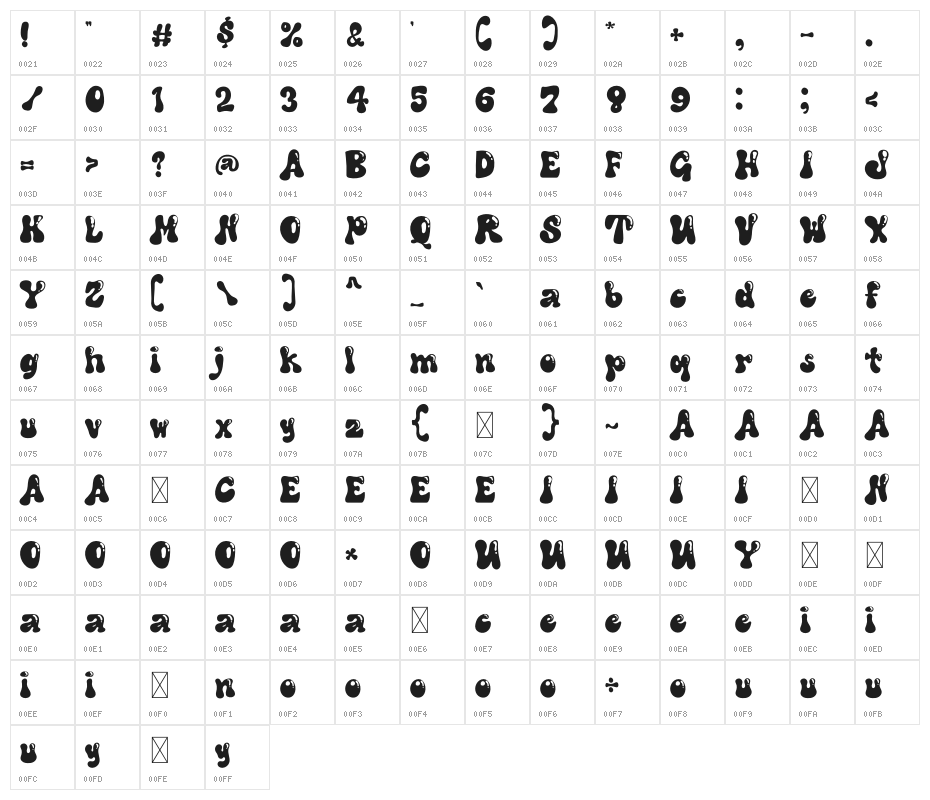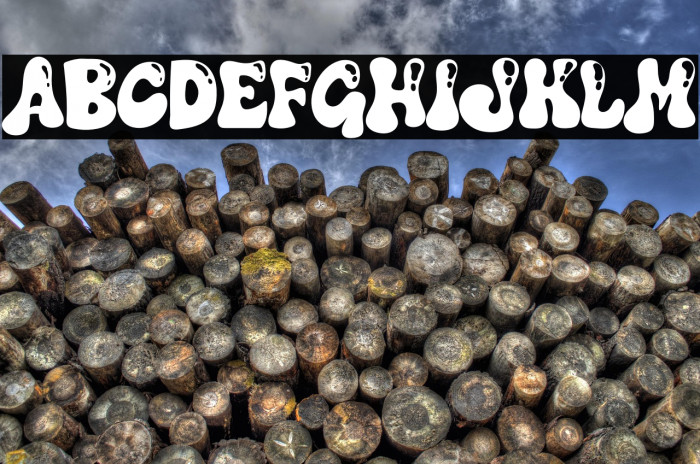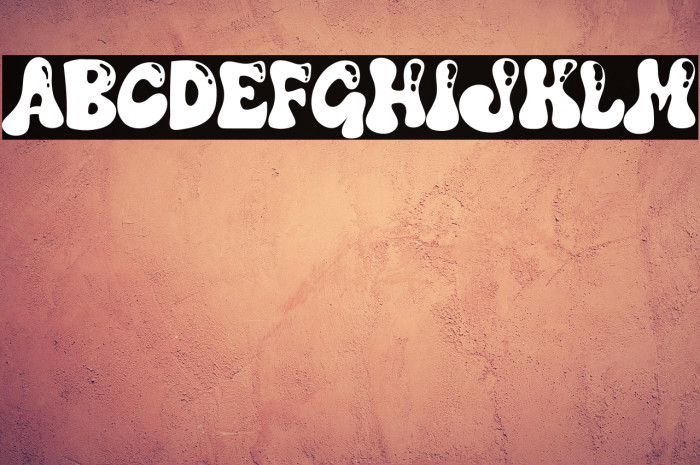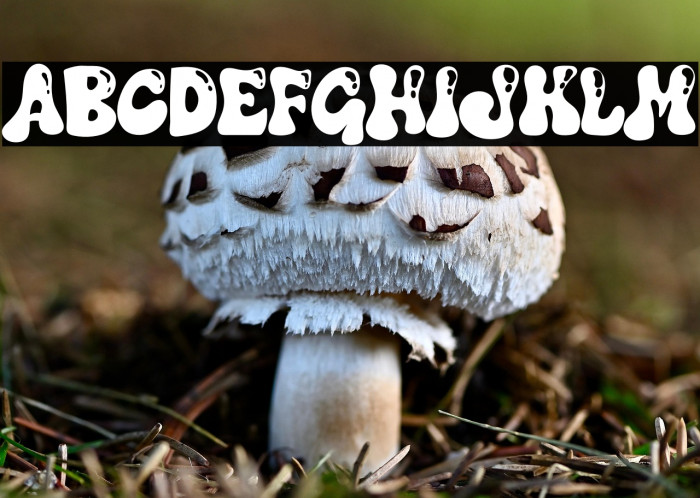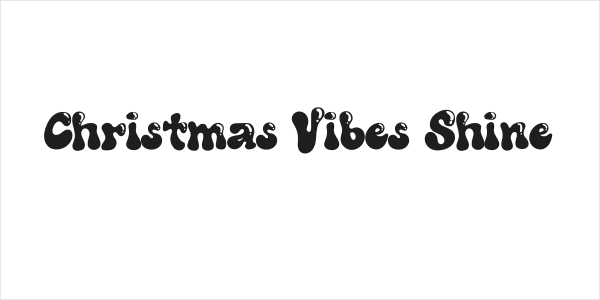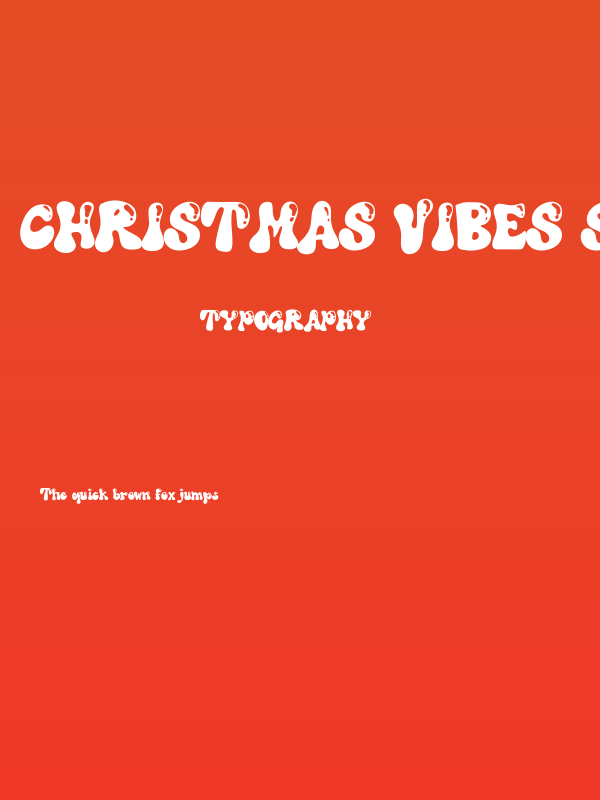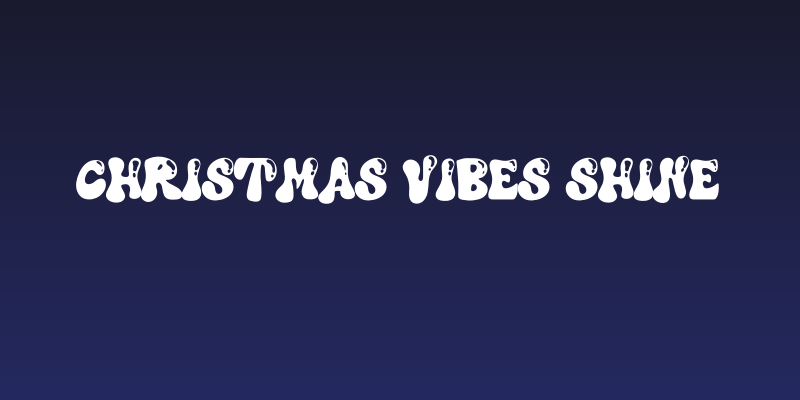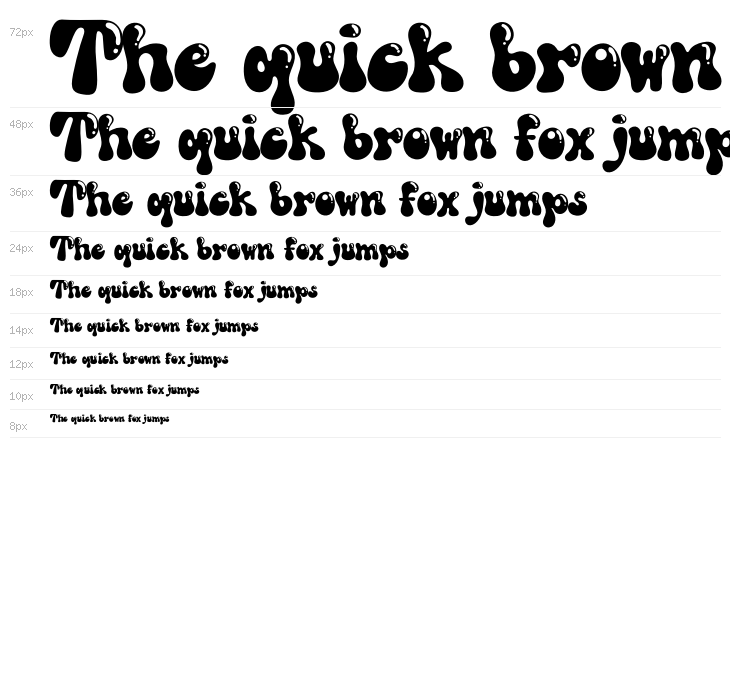
Christmas Vibes Shine Font
Christmas Vibes Shine Description
This playful and whimsical font features bold, rounded characters with a unique, bubbly appearance. Each letter is adorned with small, decorative elements that resemble drops or drips, adding a festive and cheerful vibe. The font's thick strokes and rounded edges give it a friendly and approachable feel, making it ideal for creative and fun projects. The characters are evenly spaced, ensuring readability while maintaining its decorative charm. This font is perfect for capturing attention and conveying a sense of joy and celebration.
| Overall Style | Playful, Festive |
| Proposed Projects | Ideal for holiday cards, festive invitations, children's book covers, and playful branding. |